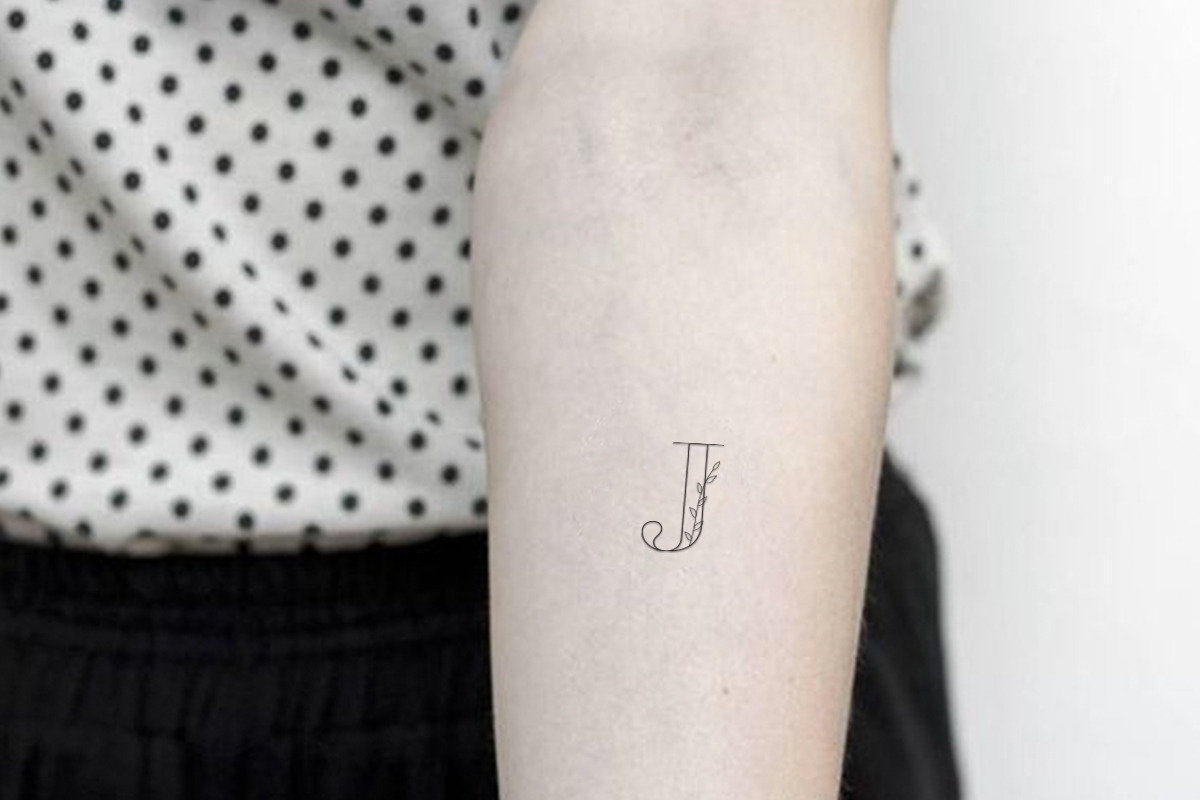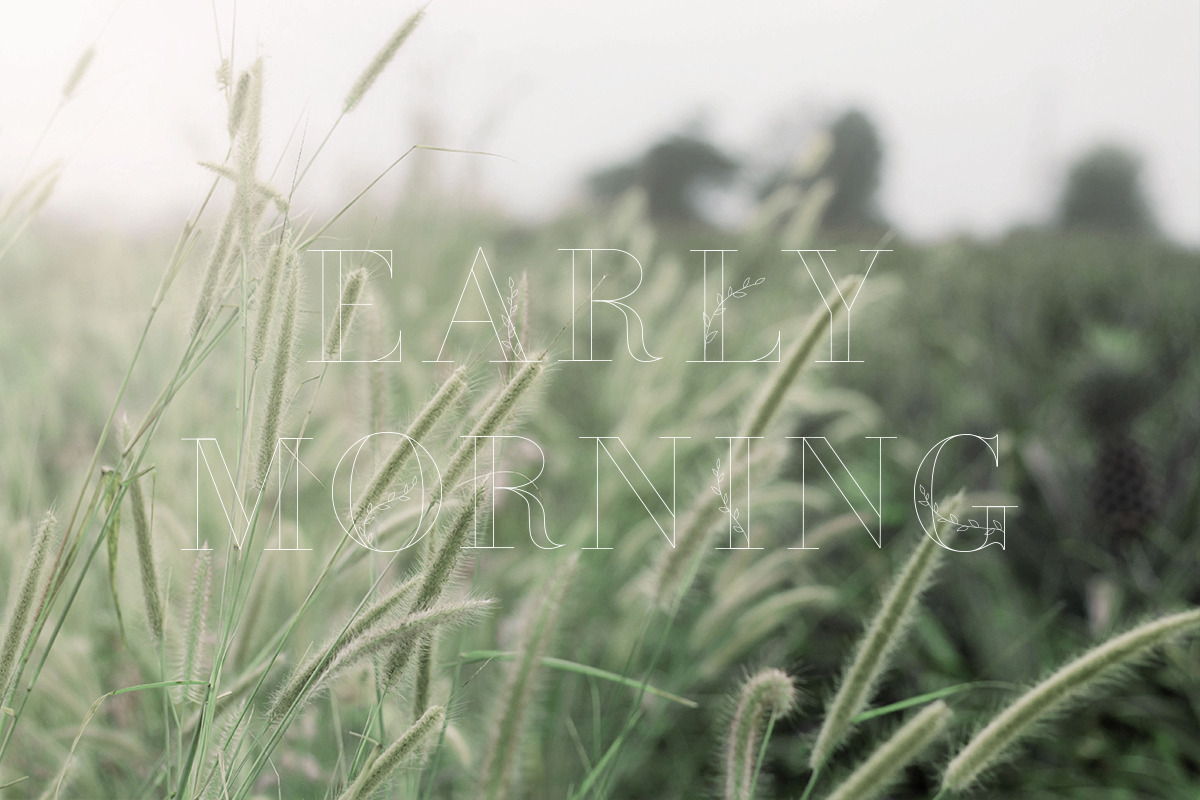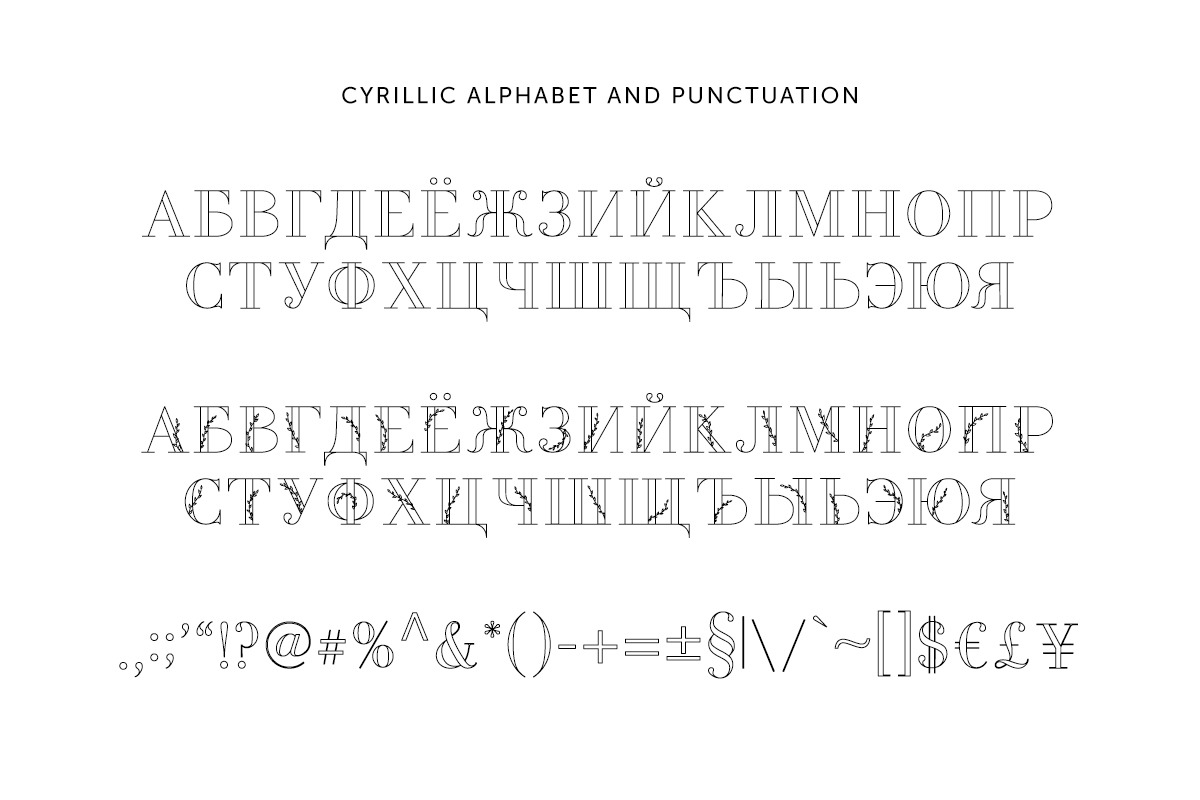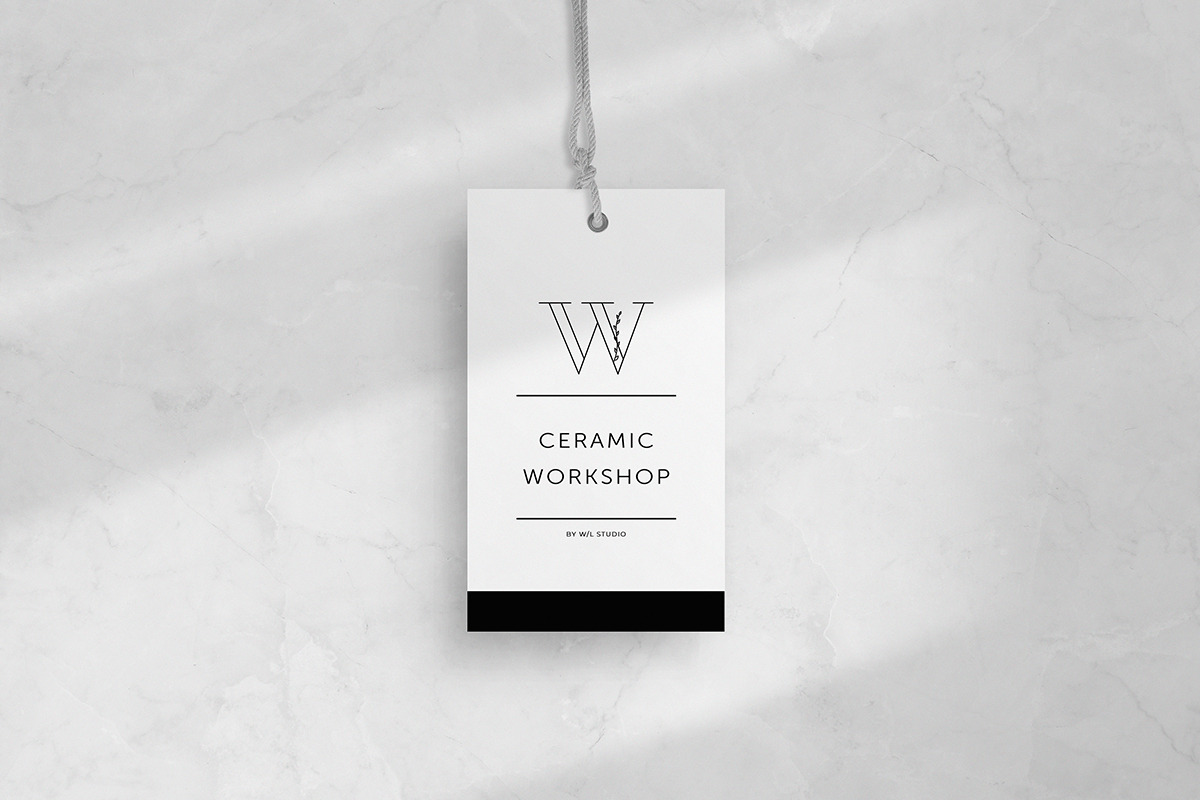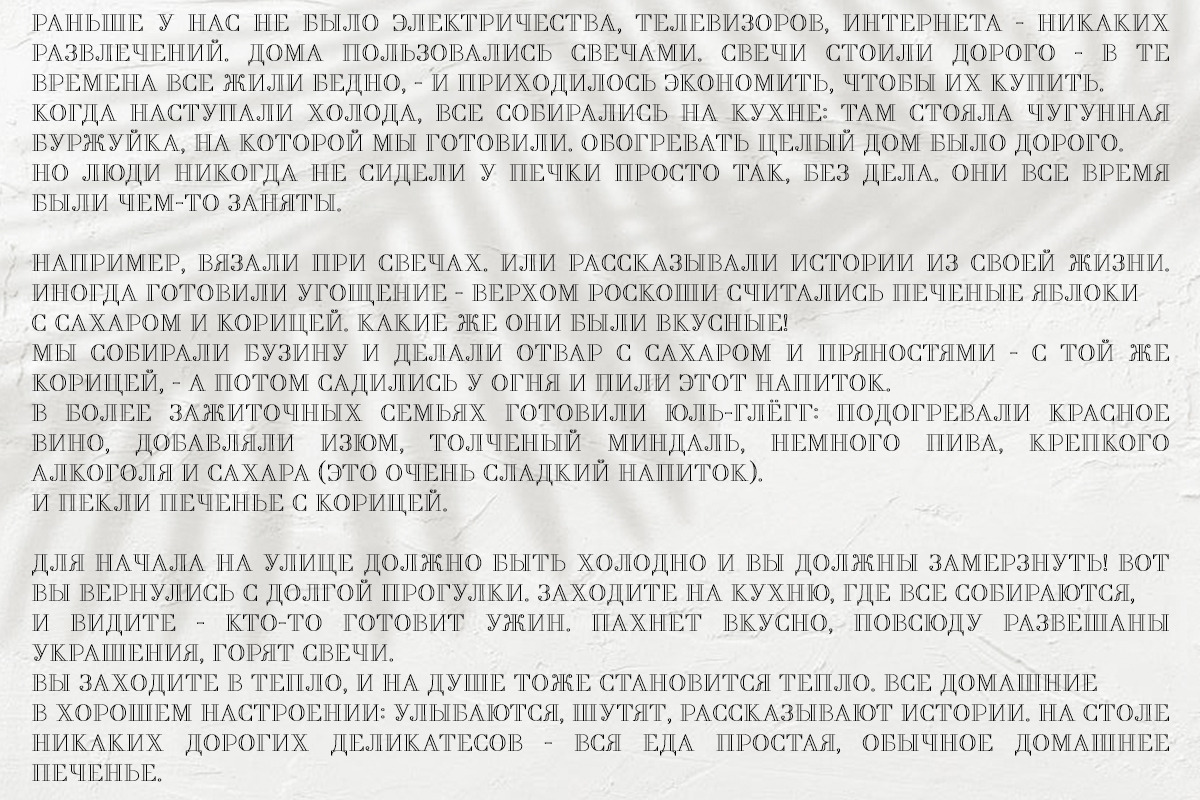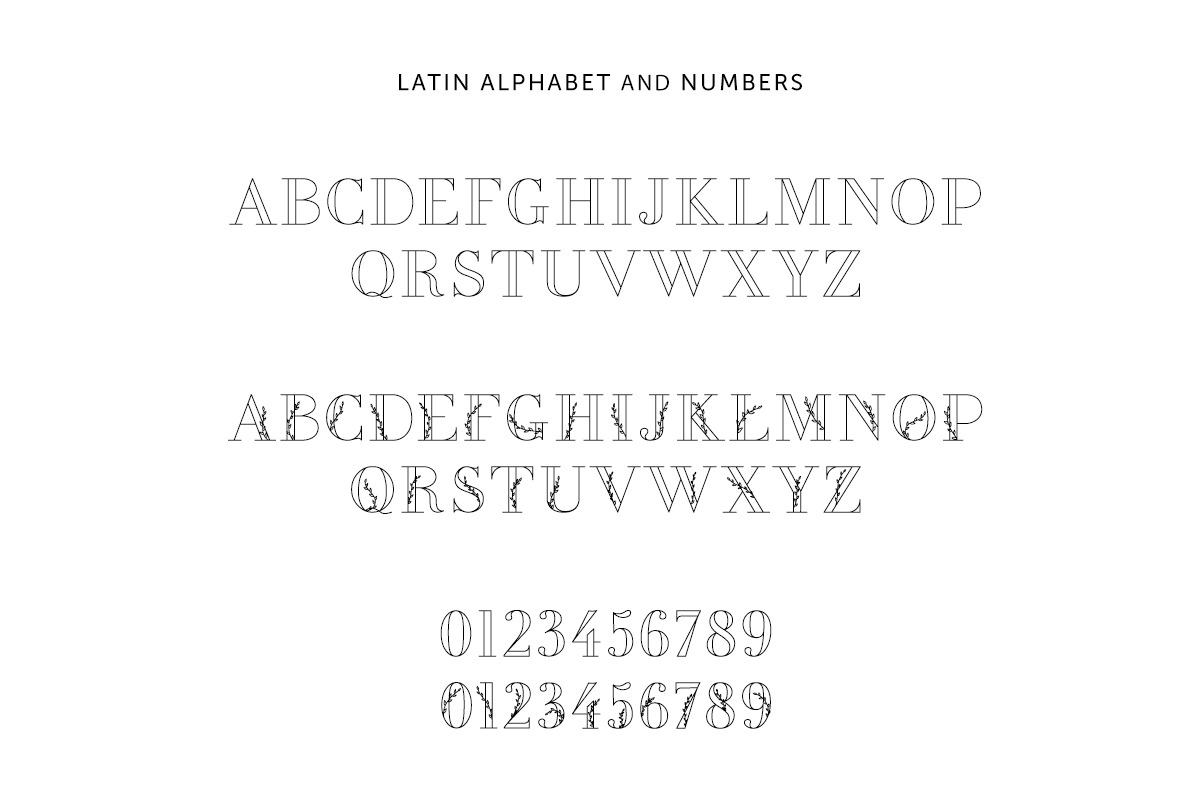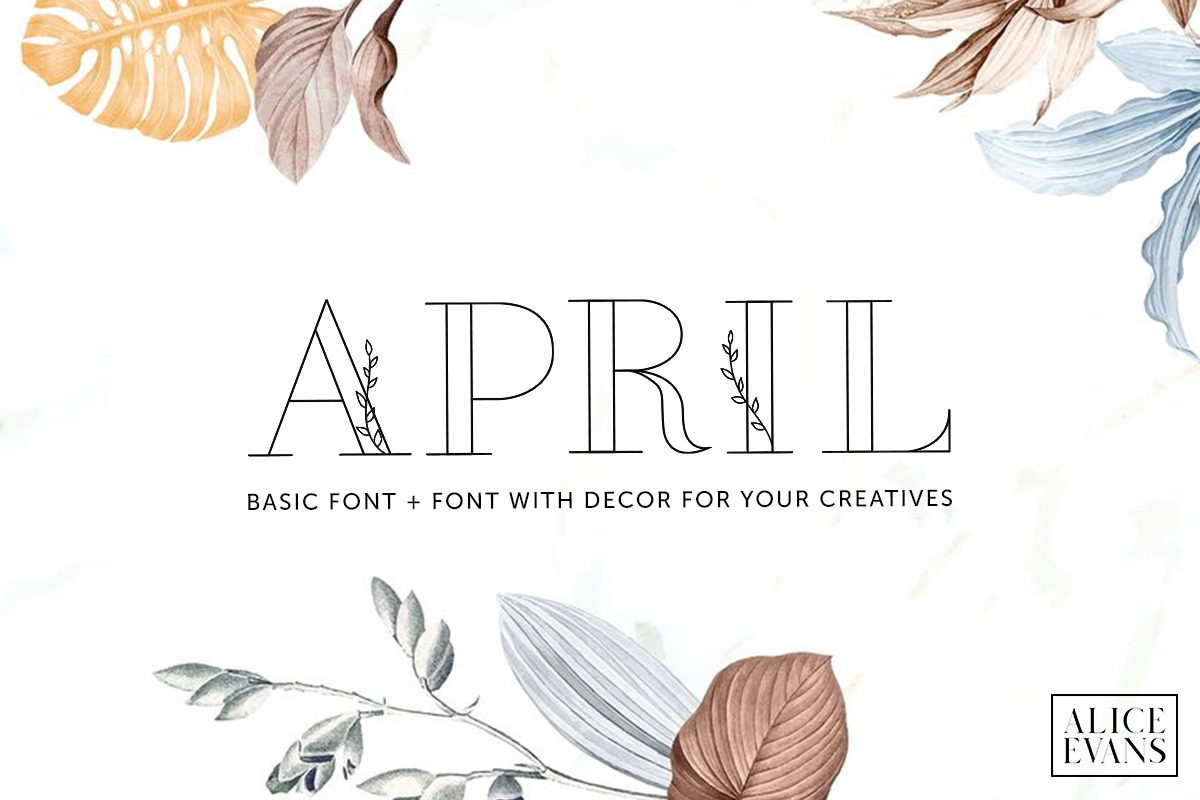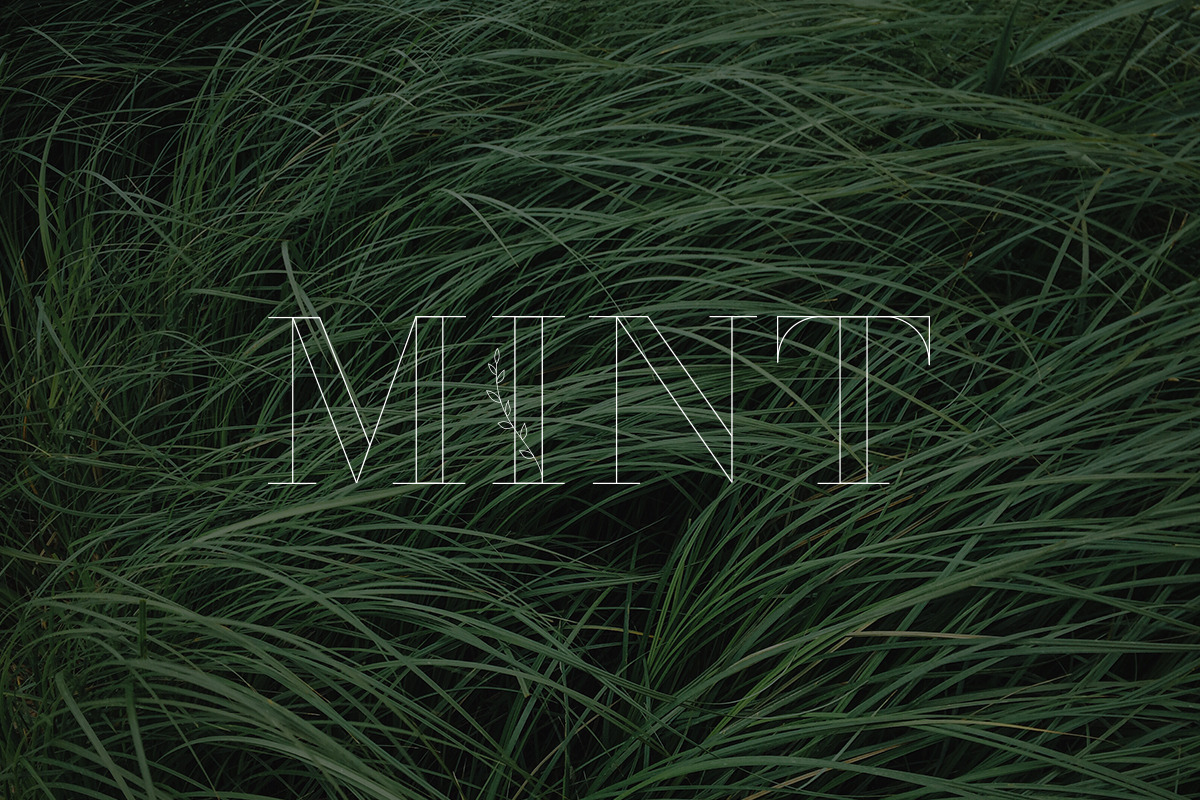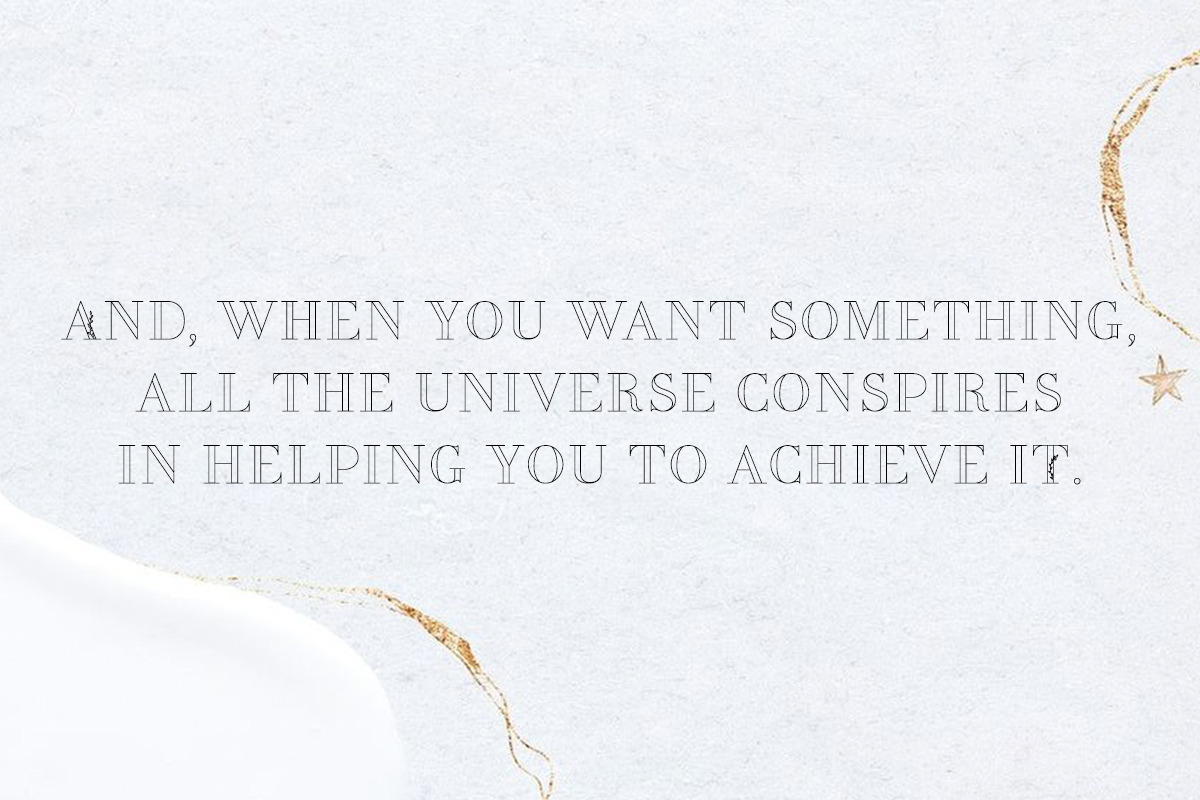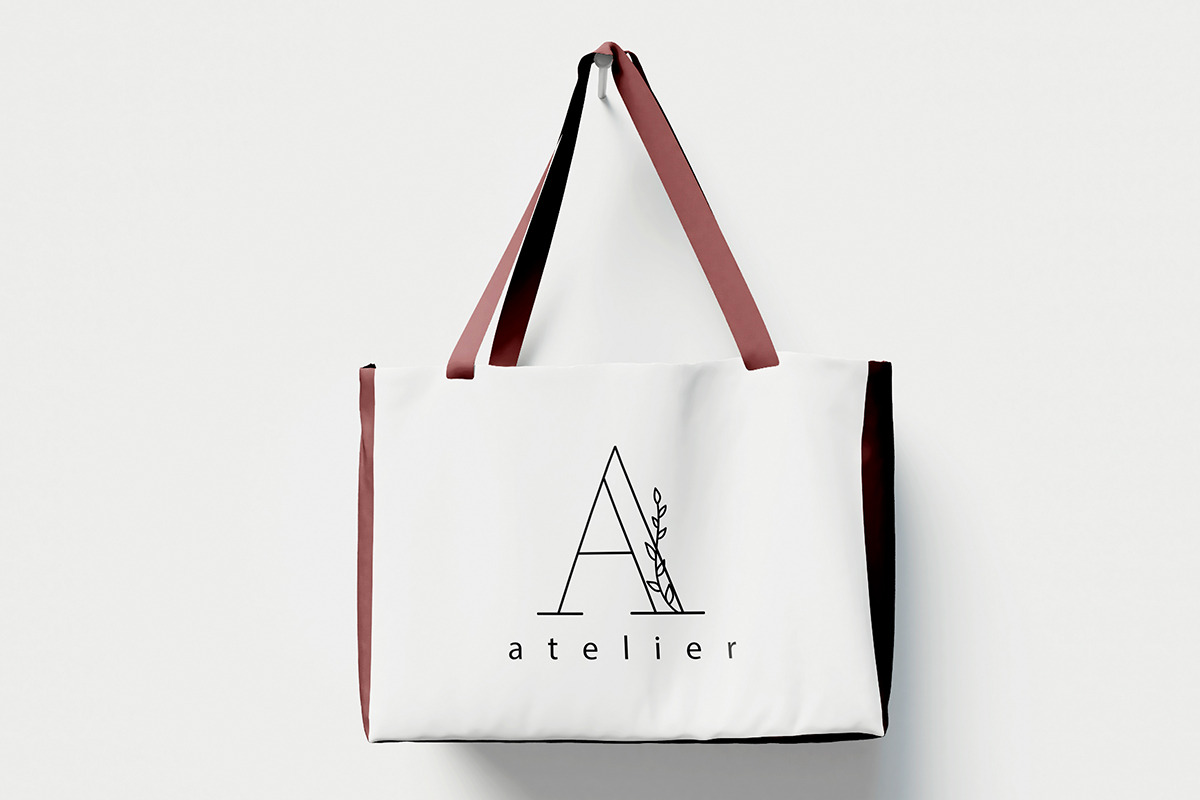
April Font
Thanks for your attention to my new font pack called just April. This includes Uppercase characters of Latin and Cyrillic alphabets created by a quite simple thin lines and a decorated version with leaves to make your design more gentle. You may use only one style or combine them.
April Features:
- x 26 basic Latin Uppercase A-Z
- x 26 decorated Latin Uppercase A-Z
- x 33 basic Cyrillic Uppercase А-Я
- x 33 decorated Cyrillic Uppercase А-Я
- 0-9 Numbers
- 0-9 decorated Numbers
- Basic punctuation symbols